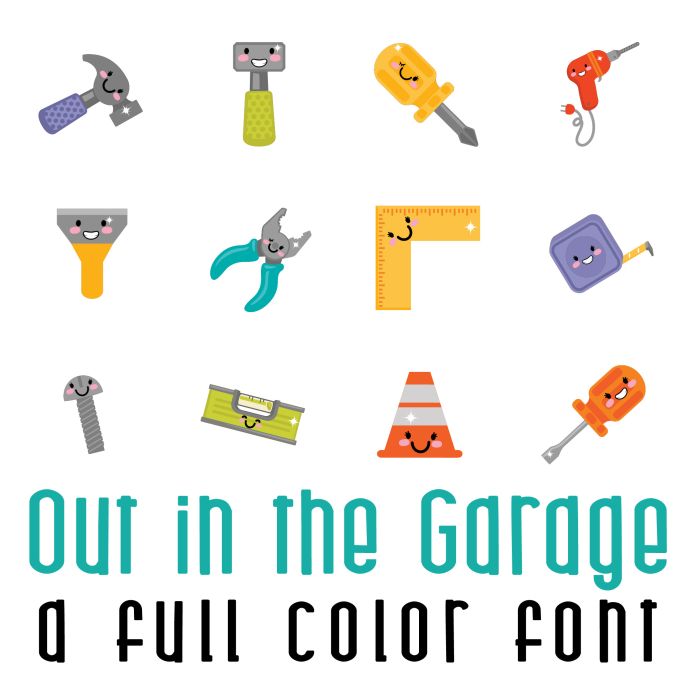
This fun full color font features 26 different kawaii style tools. Perfect for cards, crafts, gifts, decor, scrapbook pages, planner stickers, Father's Day and more!